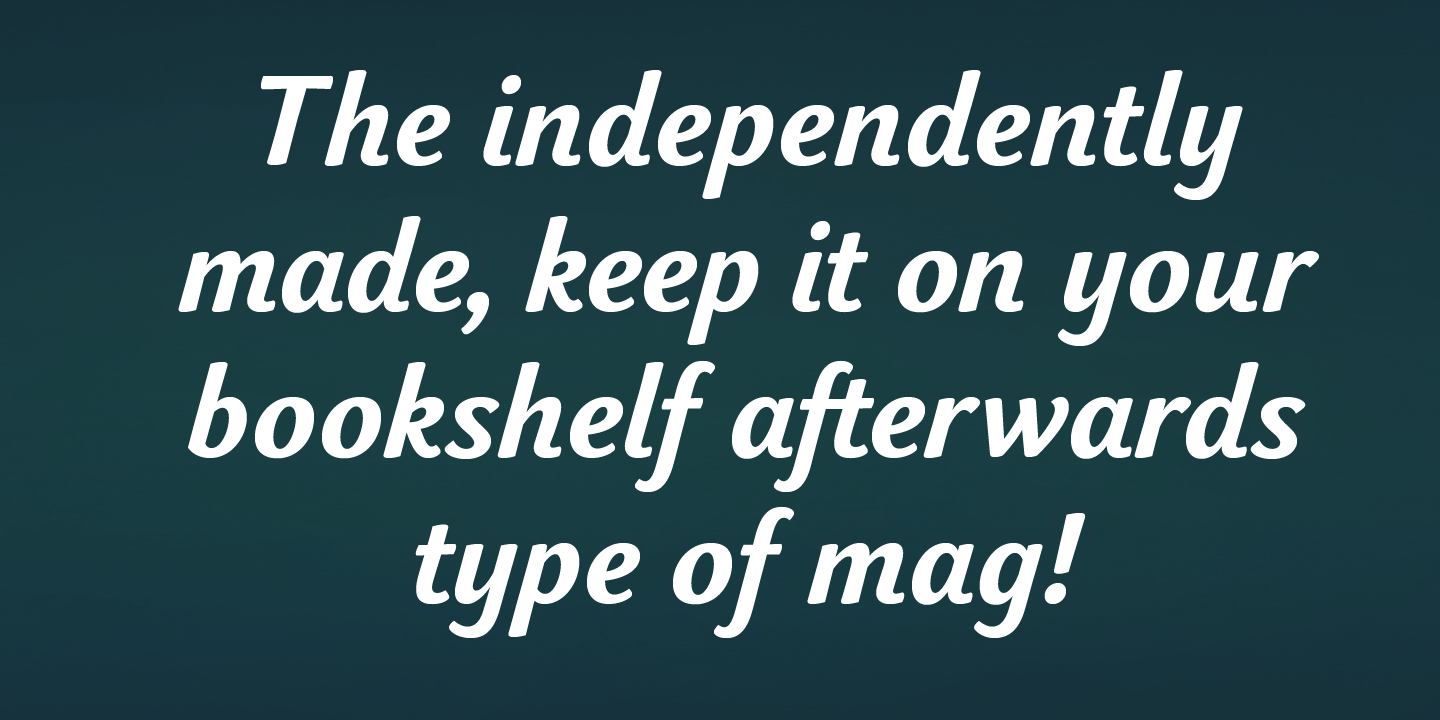
The Makozin Font is an excellent choice for projects that demand a strong, contemporary, and impactful visual presence. Think about using it for bold headlines in fashion magazines, eye-catching album covers, or dynamic movie posters. It's also perfect for branding initiatives that aim for a modern, edgy feel, such as streetwear labels, tech startups, or event promotions. Its distinct character makes it ideal for logos, website headers, and even social media graphics where you want to make an immediate statement.
What makes the Makozin Font so exciting is its audacious and unconventional design. It breaks away from traditional norms, offering unique letterforms that are both artistic and highly readable. This font has a confident personality that can instantly elevate your design, adding a touch of avant-garde flair without being overly abstract. Its strong presence ensures your message is not just seen, but felt, leaving a lasting impression on your audience.
The Makozin Font family typically includes several weights, often ranging from a sleek light to a powerful heavy, and may feature extended or condensed versions to provide even greater design flexibility. Some families might also offer alternative characters or ligatures, allowing for highly customized typographical compositions. These variations empower designers to create a rich visual hierarchy and explore diverse aesthetic possibilities. Experience the bold impact of Makozin Font Free Download in your next project.